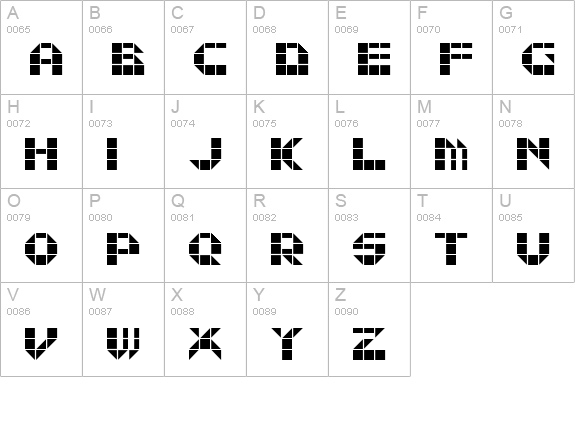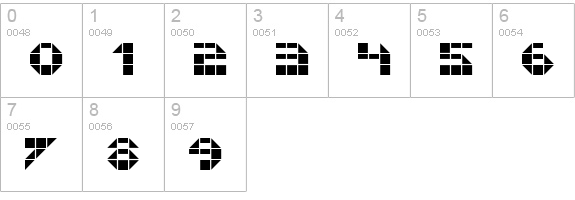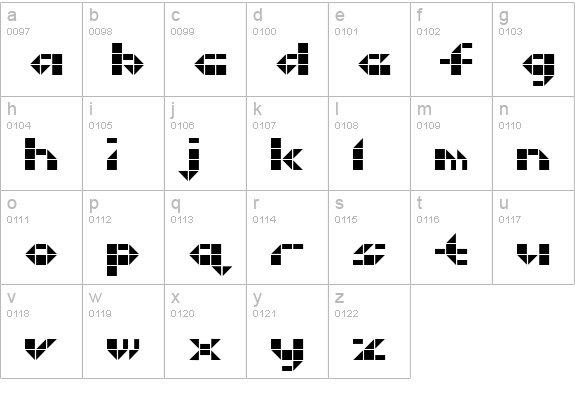
Litebrite 1975 Font Details
Litebrite 1975 font is a charming and playful typeface that brings a touch of nostalgia to any design project. With its retro-inspired design and vintage aesthetic, this font is perfect for creating eye-catching headlines, posters, and invitations. The whimsical letterforms and unique character shapes give Litebrite 1975 font a fun and quirky feel that is sure to stand out. Best of all, Litebrite 1975 font is available for free download at FontsMarket.com. This means you can easily add this delightful font to your collection and use it in all your creative endeavors without any cost. Whether you're working on a personal project or a professional design, Litebrite 1975 font is a versatile and stylish choice that will add a touch of whimsy to your work. Download it today and let your creativity shine with Litebrite 1975 font!